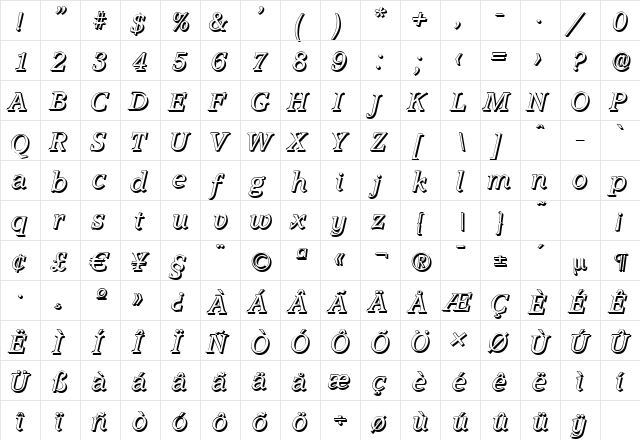
AccoladeShadow Italic
Design Context for AccoladeShadow Typeface
AccoladeShadow brings ornamental detail and strong personality to headlines and identities, where visual impact matters more than quiet functionality. Its italic angle brings a sense of urgency and motion to the letterforms.
Font Pairing: Pair with a clean neutral sans-serif for body copy to let AccoladeShadow's character lead without overwhelming the composition.
Pro Tip: Treat AccoladeShadow as the centrepiece of your typographic hierarchy. One strong heading set in a decorative face can carry an entire layout.